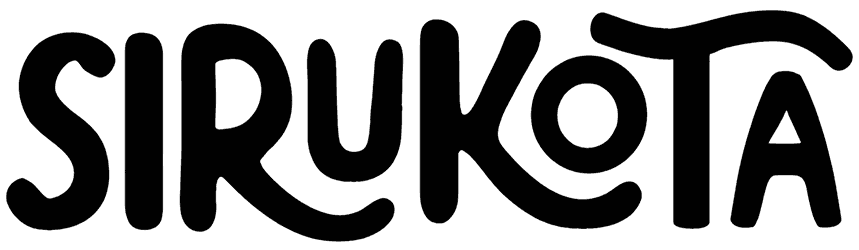
Sirukota Font
If you are looking for a logo font with a playful touch, we have a special offer, such as Sirukot, for you. This script font comes with rounded characters, thus it carries a sense of jauntiness, vivacity, love, and tenderness.
We strongly recommend you overlook the lack of lowercase letters and pick up this masterpiece for designing gorgeous illustrations, children’s book covers, logos, business cards, or flyers.
Sirukota is a unique display typeface with a lively theme. With a couple of special characters, this font will give your projects a heart and soul.
Sirukota Font is suitable for variety of branding projects, logos, creative designs, social media posts, advertisements, and so much more. Show them how unique you are with Sirukota!